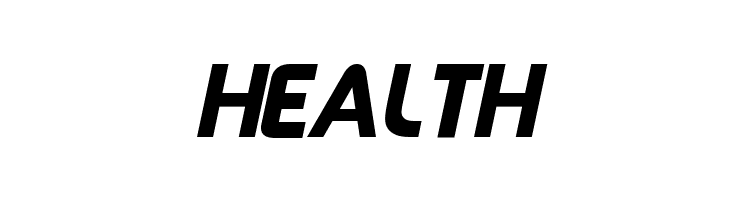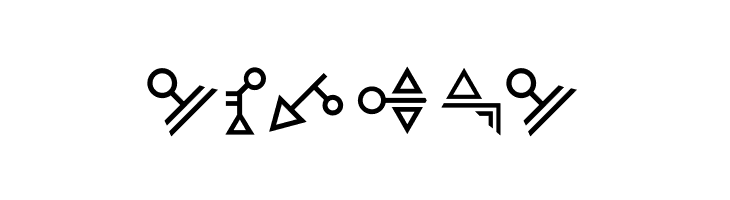
• Queen of Camelot
A bold, geometric font with strong, angular lines and consistent stroke widths.
• Queen of Camelot Italic
A bold, italicized font with medium contrast and a modern, dynamic style.
• FoughtKnight Die
A bold, angular font with a futuristic and geometric design.
• Sprykski
( Fonts by Dave Bleja )
Abstract geometric symbol font with unique glyphs.
• Weird Mario Bros
( Fonts by Diego Gonzalez )
Pixelated, game-inspired decorative bitmap font with quirky icons.
• AftonJames
( Fonts by Cumberland Fontworks )
A bold, vintage-style serif font with high contrast and a classic woodblock print feel.
• Afton James
( Fonts by Cumberland Fontworks )
A bold, vintage-style font with thick, sturdy strokes and a slightly condensed appearance.
• LAKAMEALEON
( Fonts by Maelle.K - Thomas Boucherie )
A bold, textured font with a brush stroke appearance, perfect for artistic designs.
• Americorps Academy Regular
A bold, dynamic font with a slanted, outlined style ideal for impactful designs.
• Americorps Gradient Regular
A bold, modern font with a unique gradient effect and tight spacing.